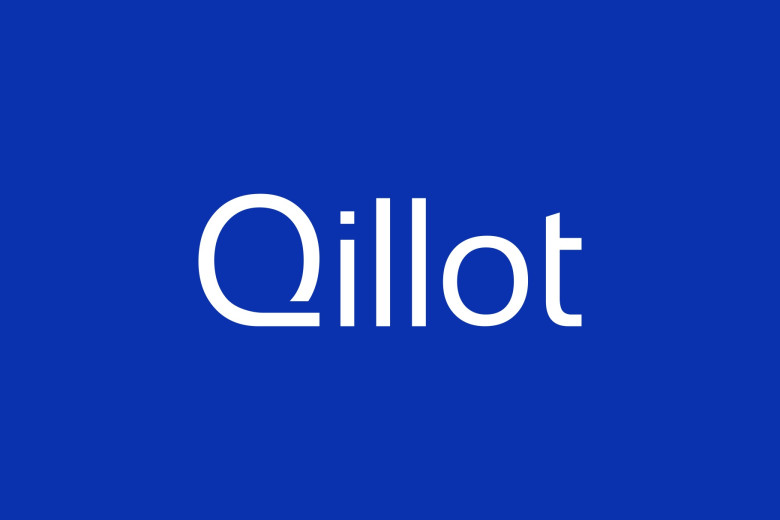
Qillot Font
This definitely is Qillot, a new and clean sans-serif typeface designed for the precise results such as for press. This family appears to be rather light in weight and its fonts are highly detailed and very precise, making it look somewhat professional. Recommended for the magazine-like designs and editorial works, Qillot is known for its excellent readability and a clean design.
Qillot Sans Serif Font